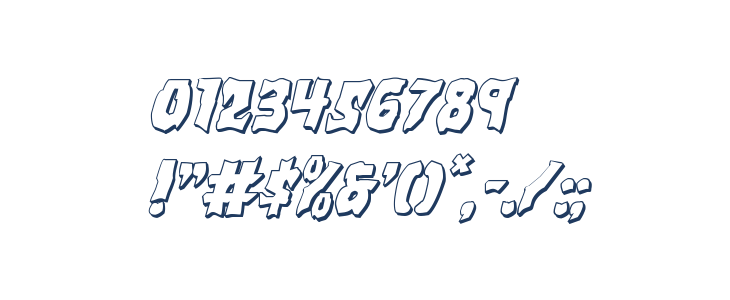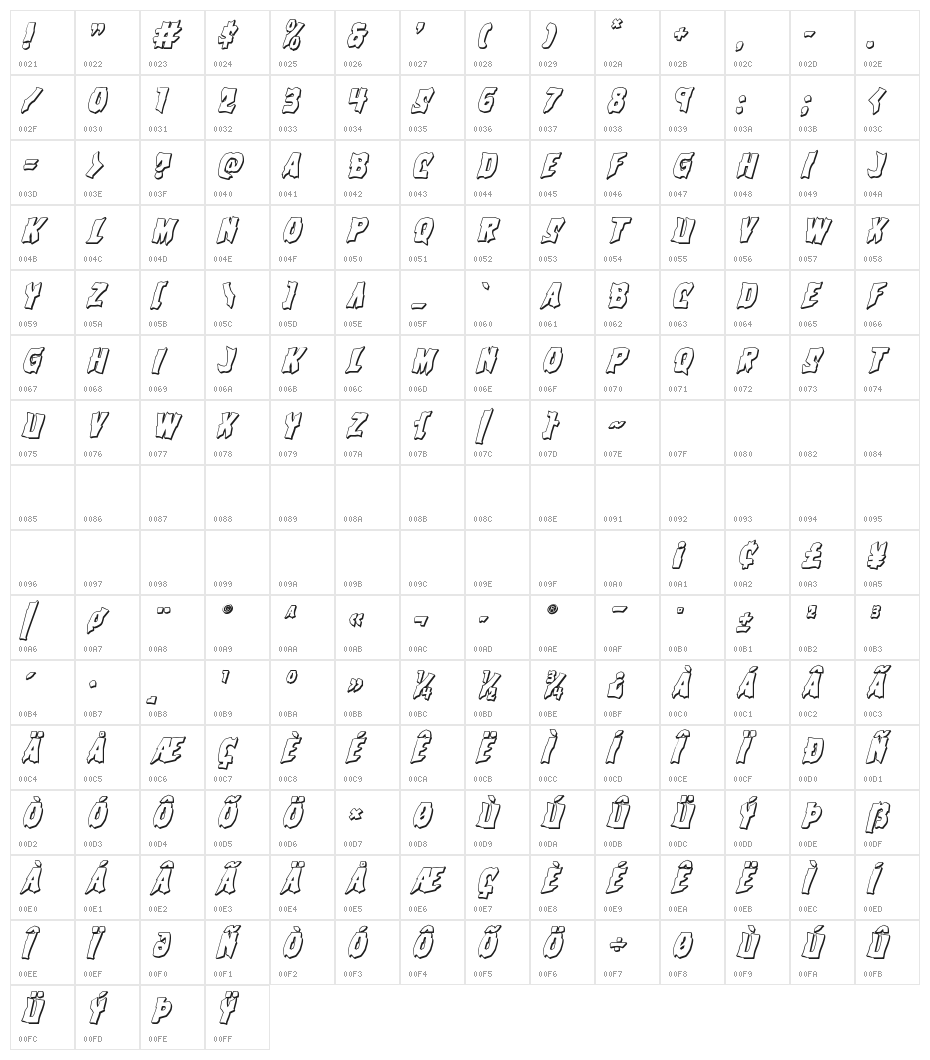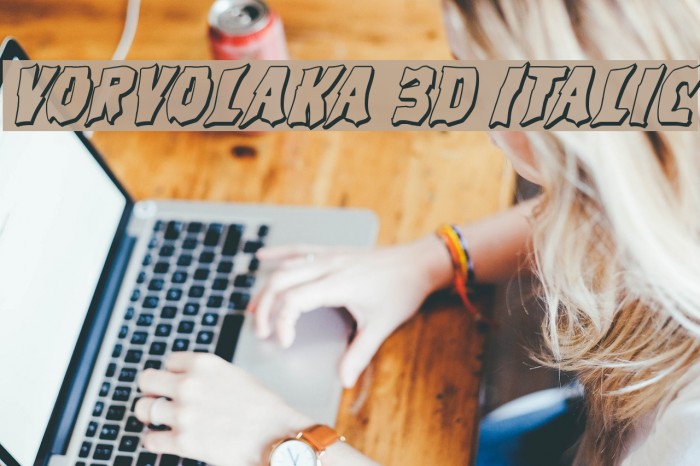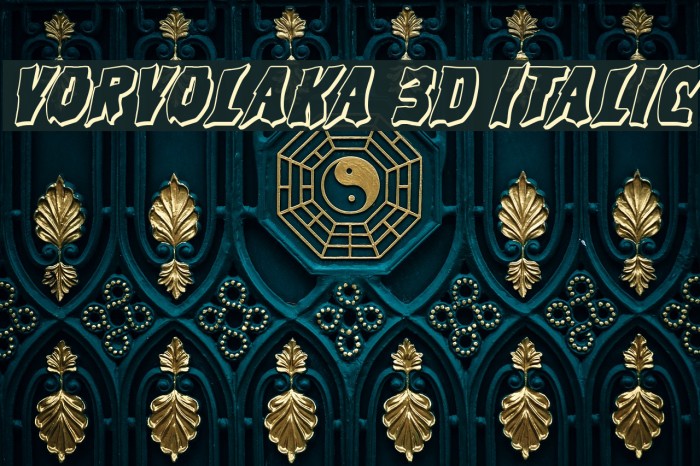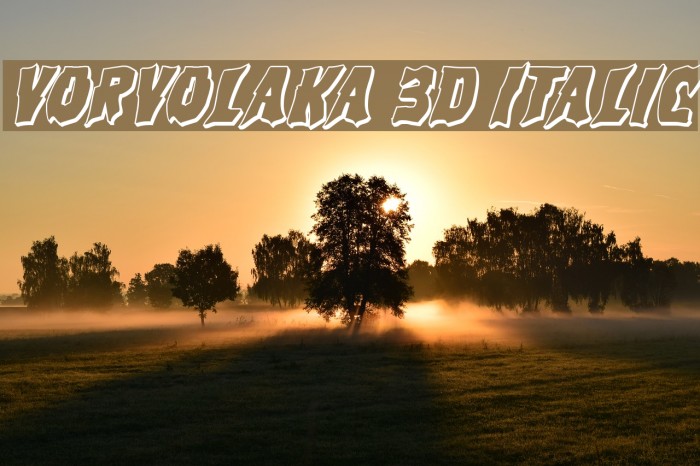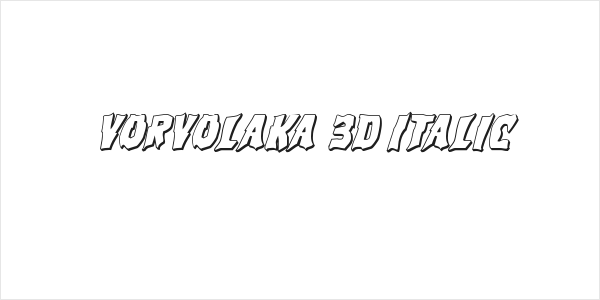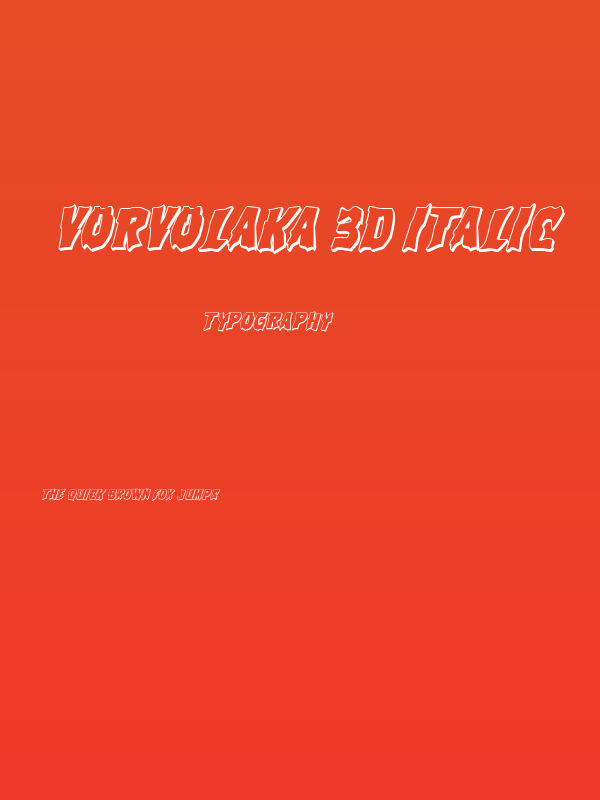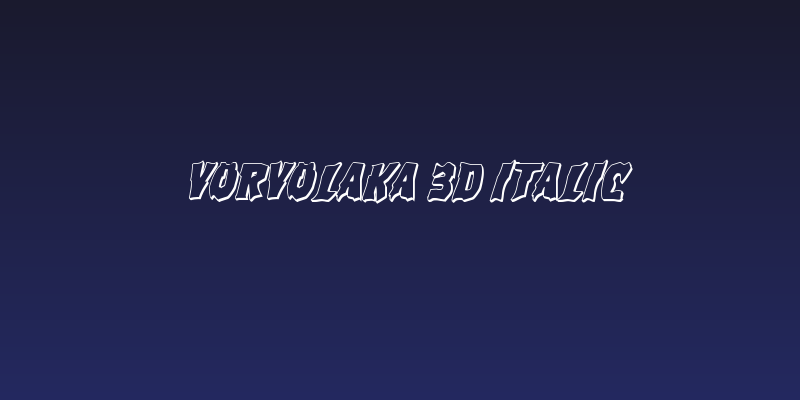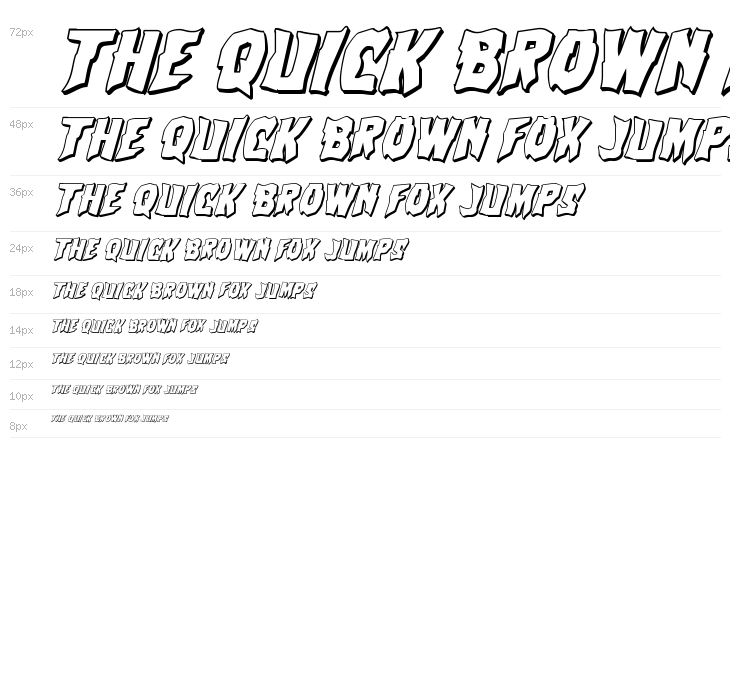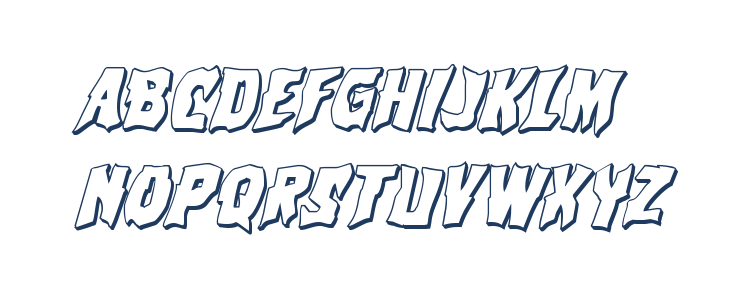
Vorvolaka 3D Italic Font
Vorvolaka 3D Italic Description
This font features a bold, three-dimensional design with an italic slant, giving it a dynamic and eye-catching appearance. The letters are outlined with a thick black stroke, enhancing the 3D effect and making each character stand out prominently. The style is reminiscent of comic book lettering, with sharp angles and exaggerated forms that convey a sense of action and energy. The uppercase and lowercase letters maintain a consistent style, ensuring uniformity across different text applications. The numbers and special characters are designed to match the bold, impactful style of the alphabet, making this font suitable for a variety of creative projects.